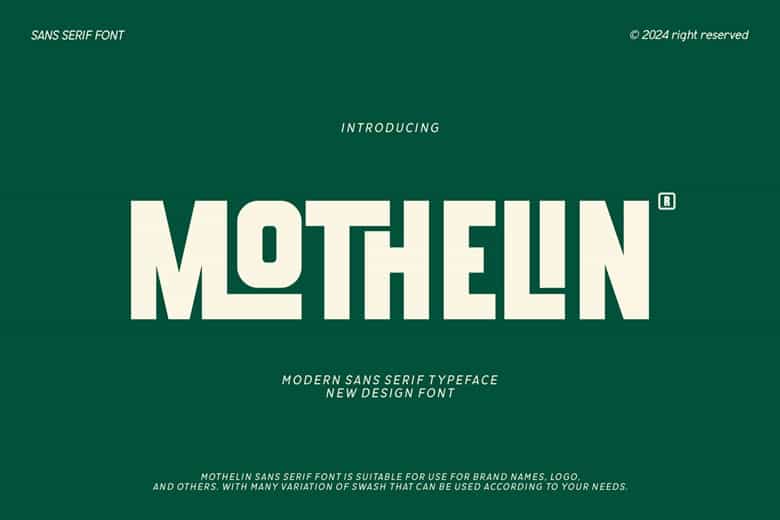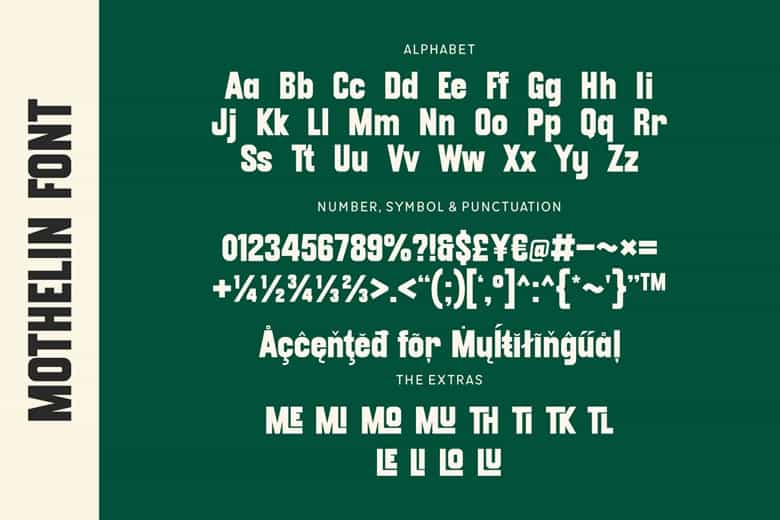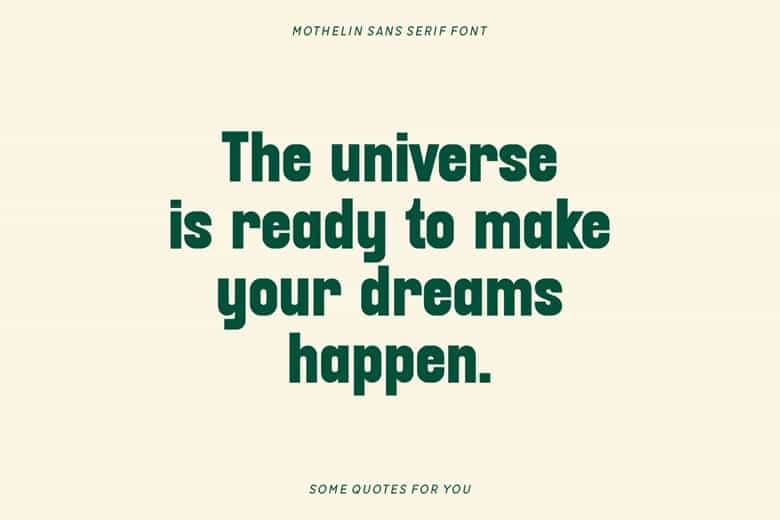
Mothelin is a simple type of font that is clean and modern with a sans-serif design of simples lines and shapes. With its benefits, it’s a dream to read, and as such suitable for big documents and titles as well as the actual texts. Ideal for neat and stylish usage in logos, posting areas and even websites.